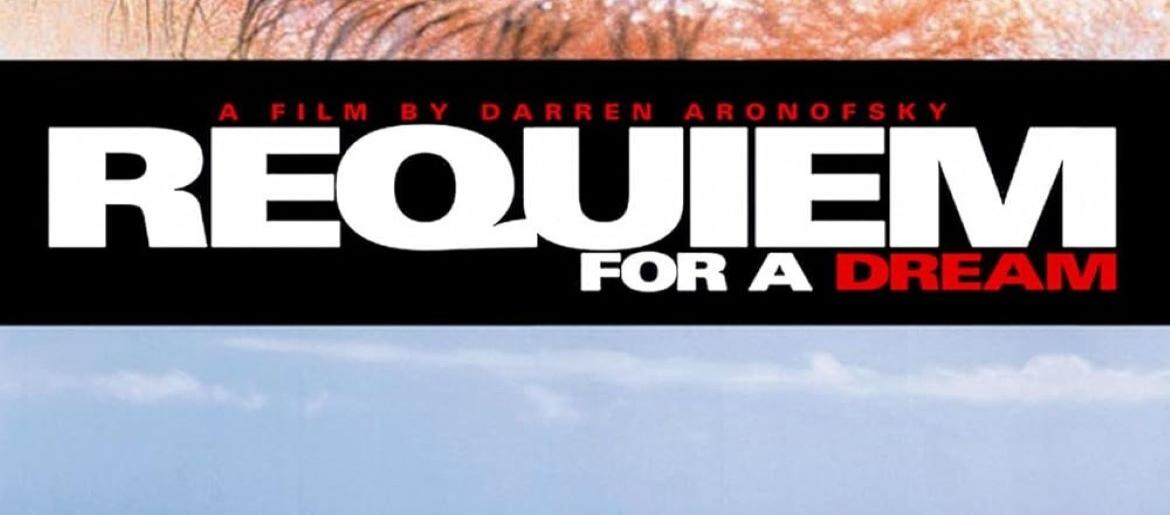
Requiem for a Dream Font
The Requiem for a Dream Font captures the unsettling tone and psychological depth of Darren Aronofsky’s acclaimed 2000 drama. Characterized by its bold sans-serif form and clean geometry, the font projects a sense of precision and detachment, much like the film’s haunting exploration of addiction and human despair. Its minimalist presentation heightens the emotional impact, allowing stark visuals and narrative tension to dominate the viewer’s experience.
Although the original typeface used in the film’s title sequence hasn’t been officially released, designers often recreate the look using fonts such as Helvetica Neue Bold, Futura Bold, or Arial Black. These typefaces maintain the same visual tension—crisp, cold, and modern—making them excellent for dramatic or psychological design work.
About Requiem for a Dream
Requiem for a Dream is a psychological drama directed by Darren Aronofsky and released in 2000. Starring Jared Leto, Jennifer Connelly, Ellen Burstyn, and Marlon Wayans, the film delves into the destructive cycles of addiction and the illusion of happiness. Its visual style and emotional intensity have made it a modern classic of psychological cinema.